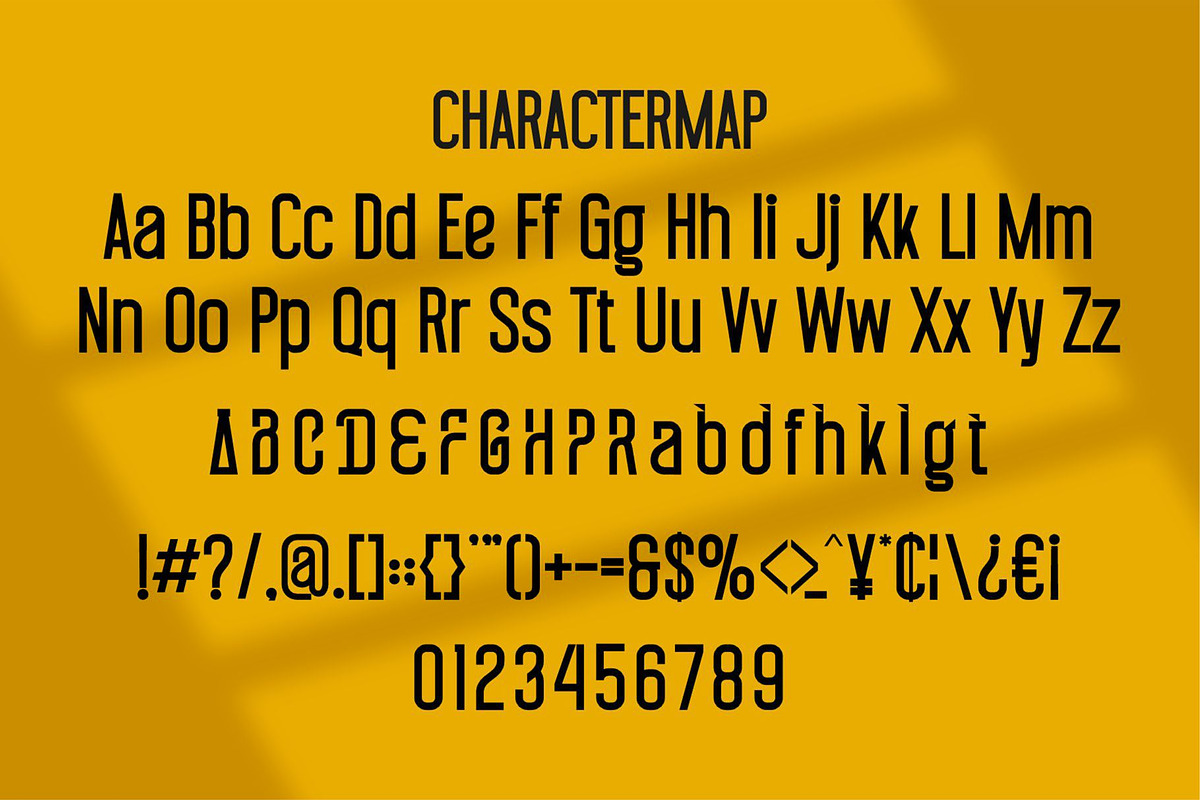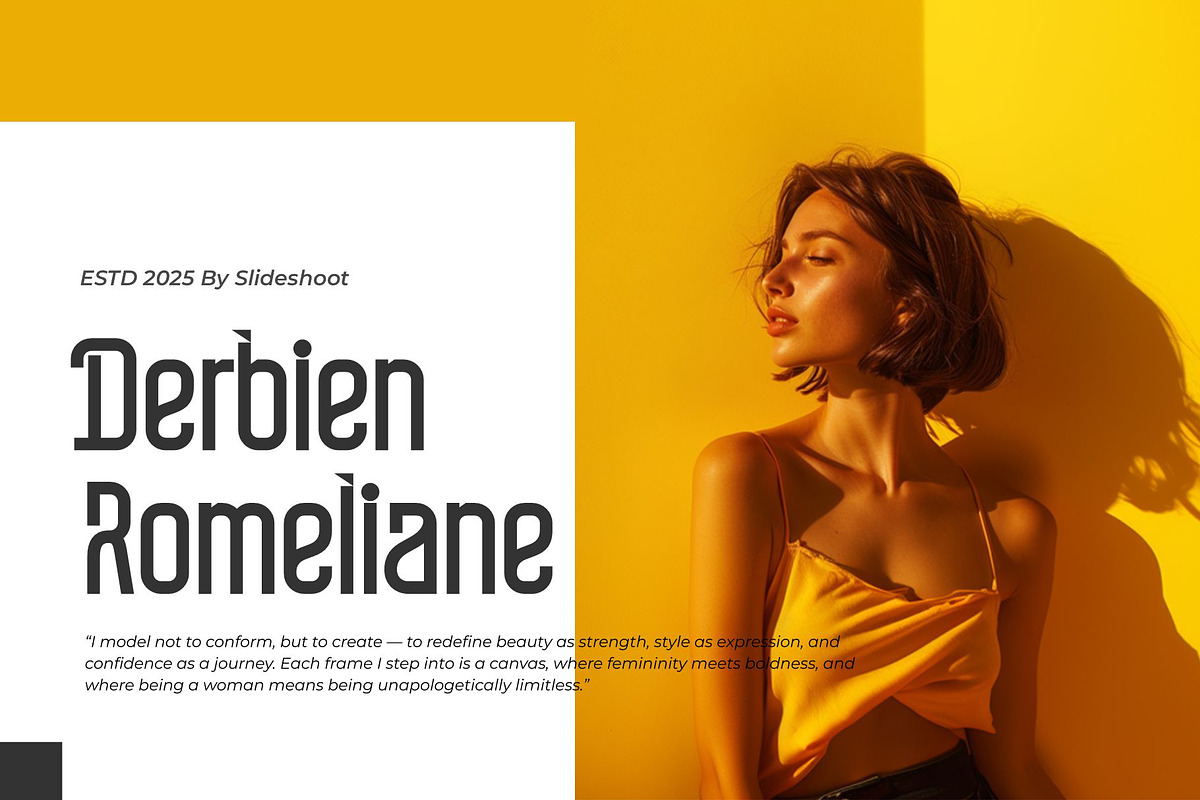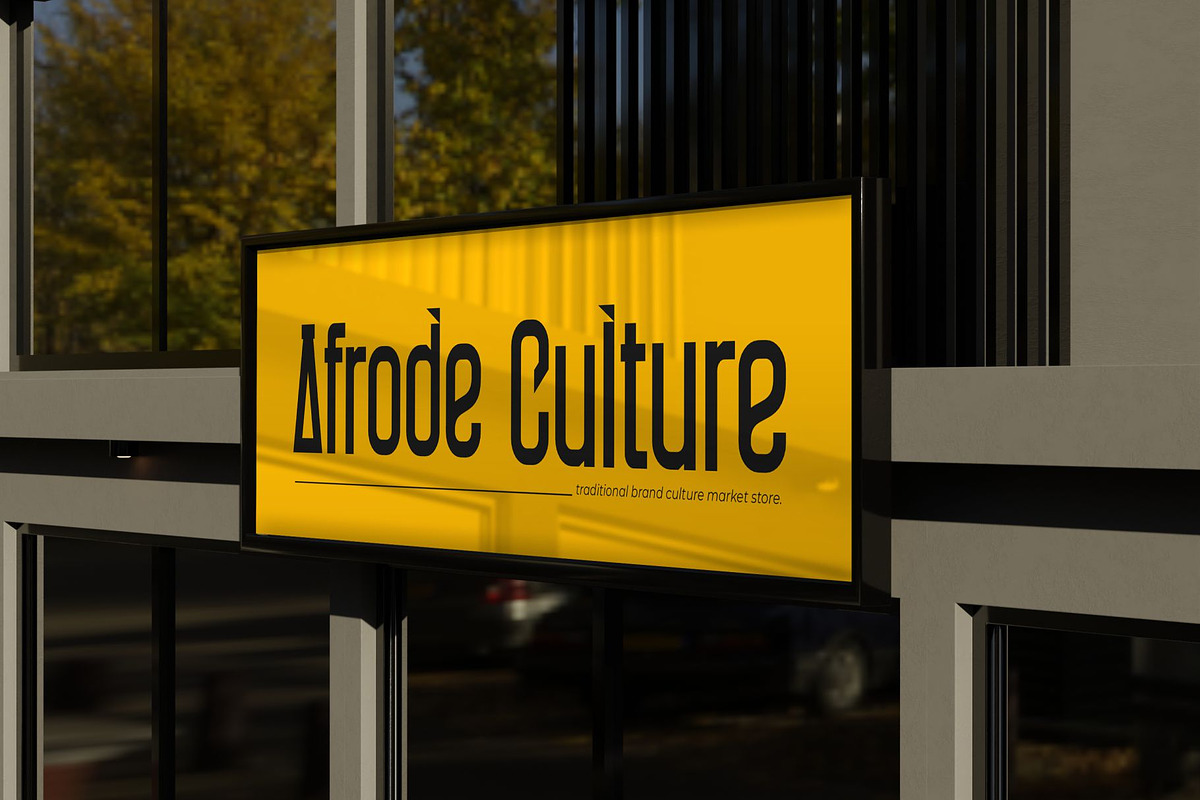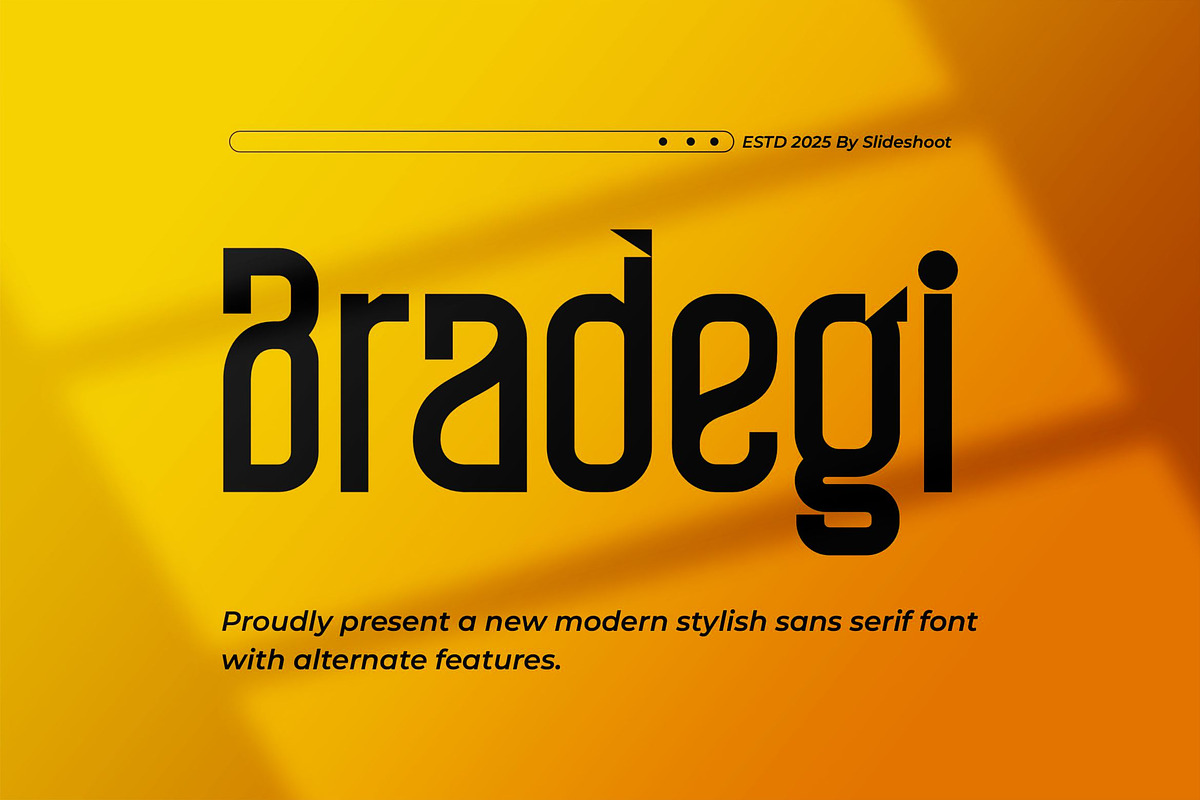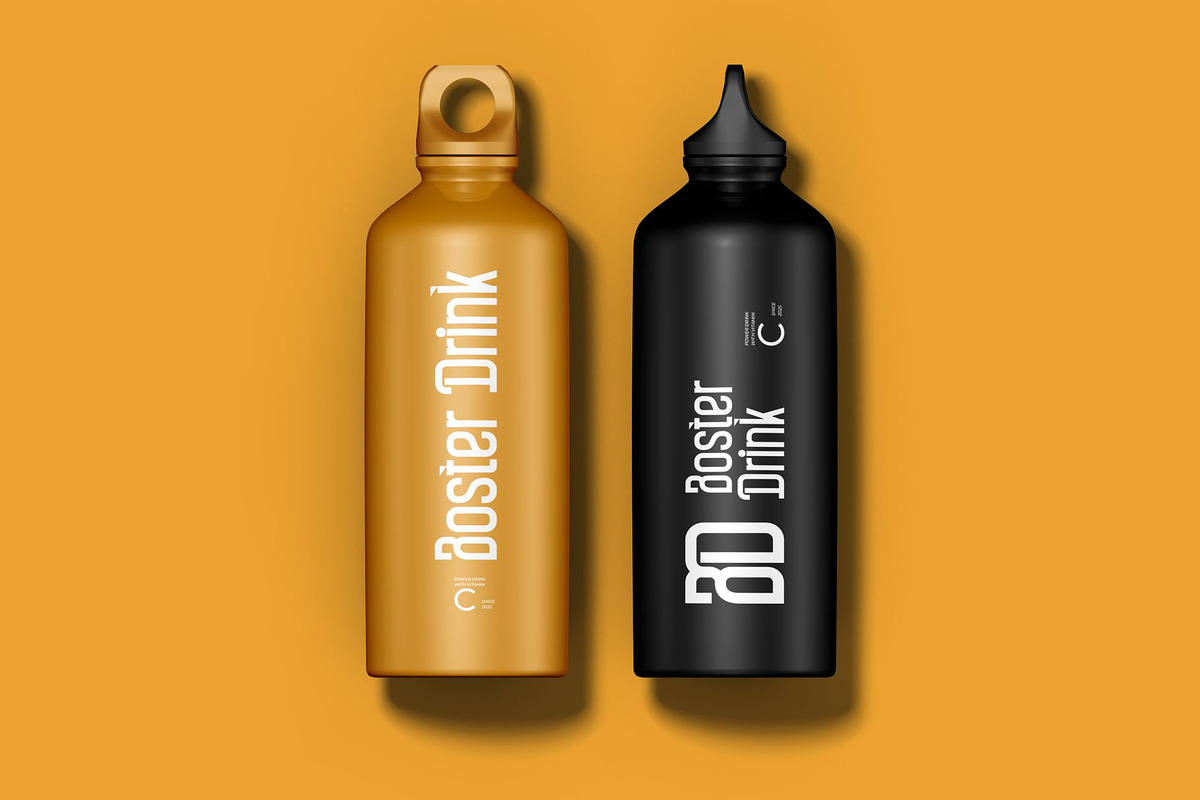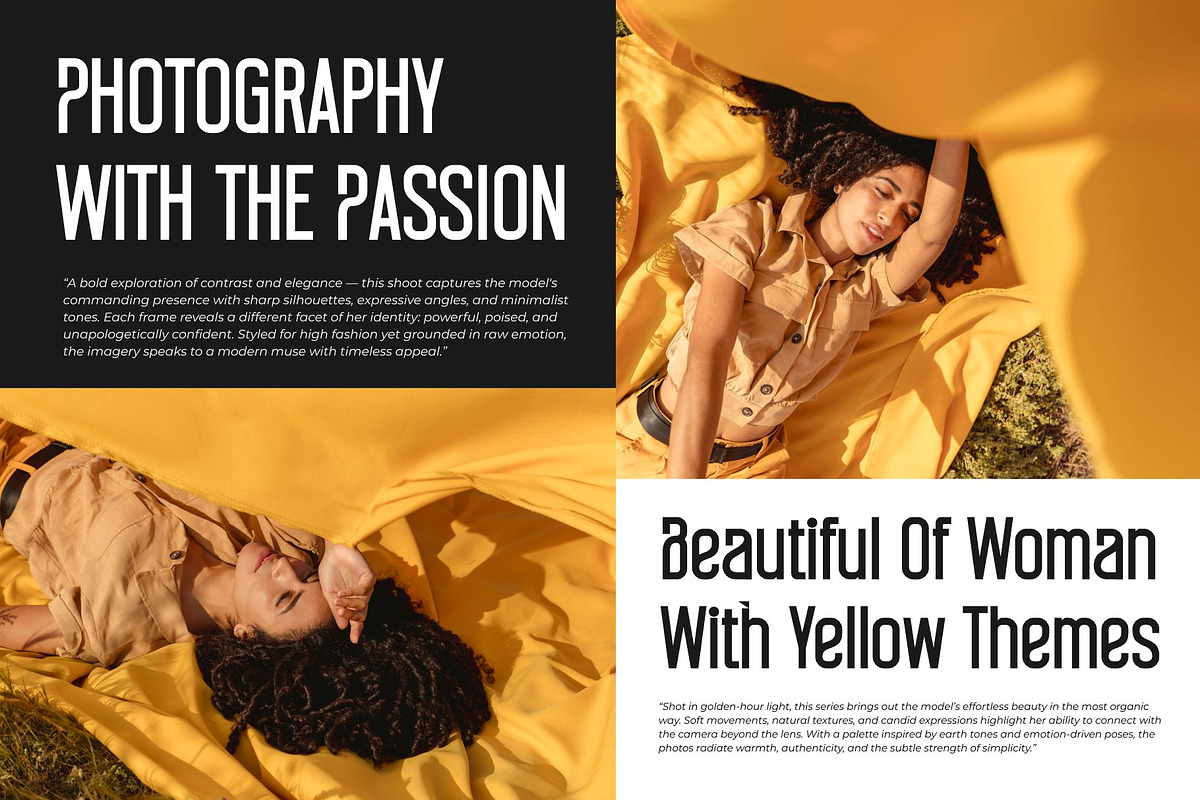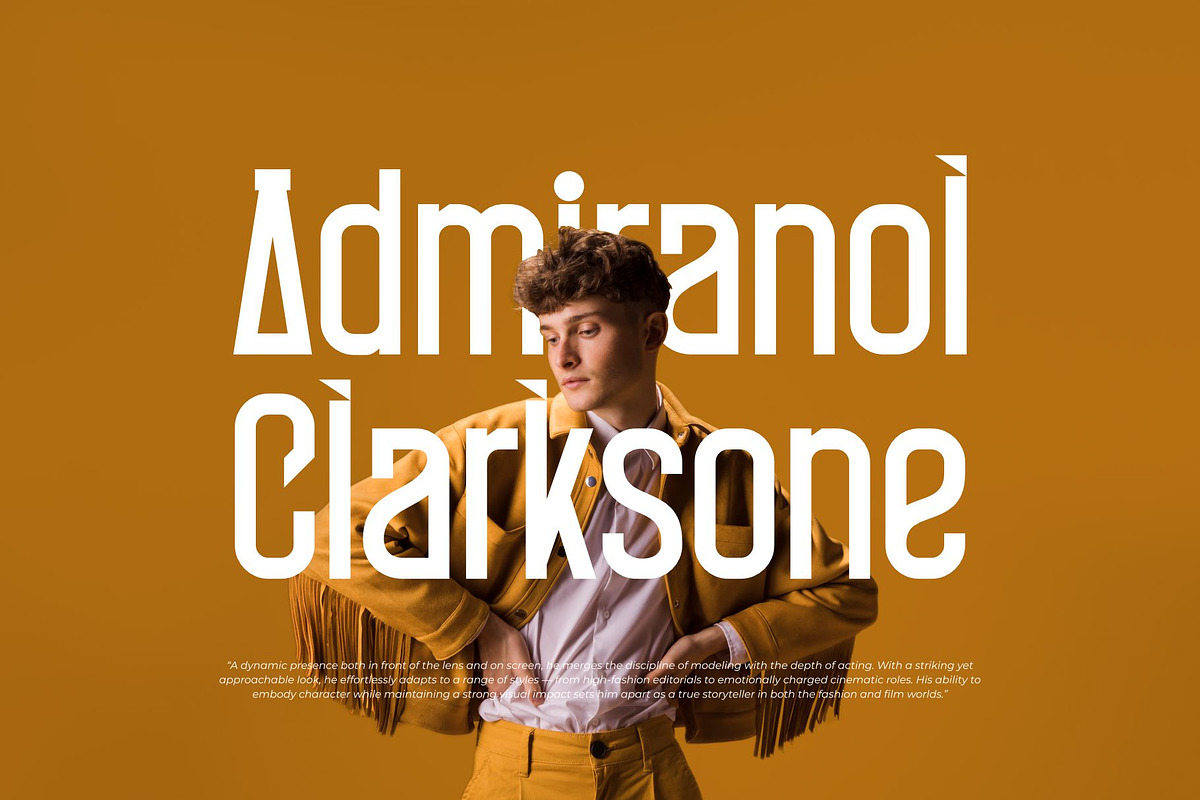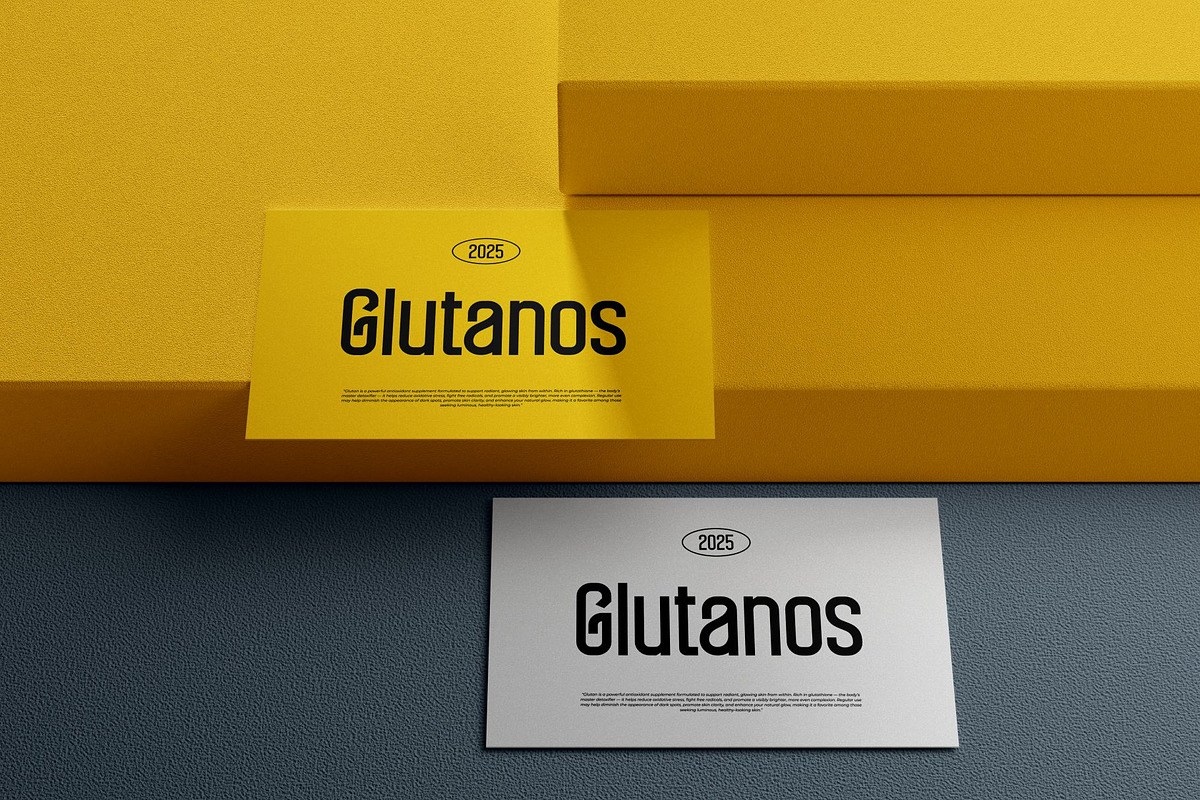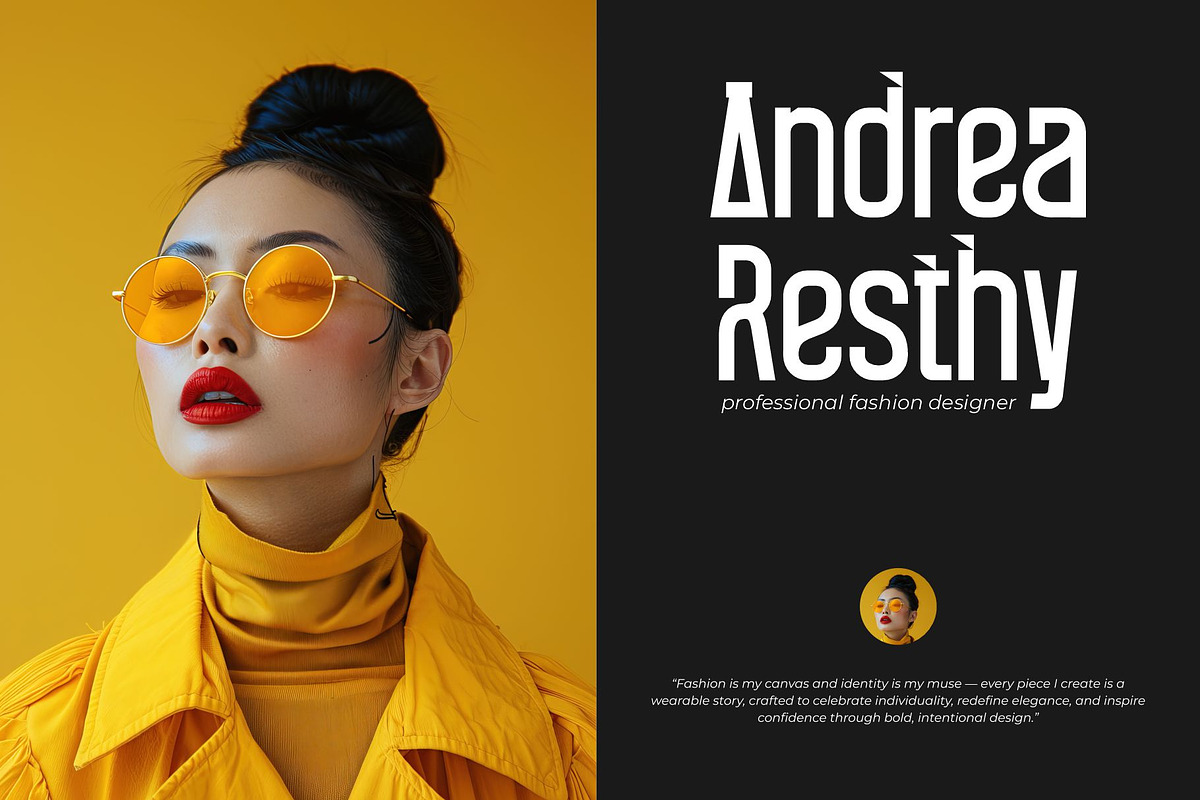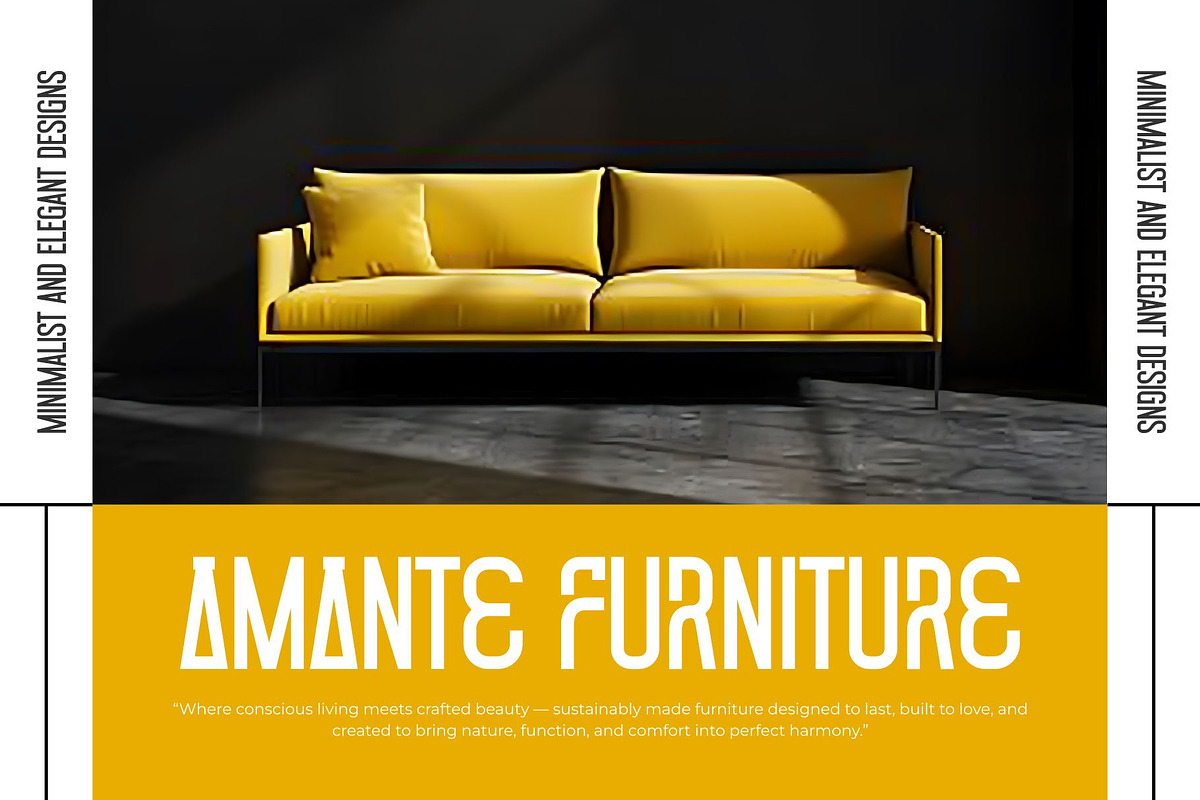
Bradegi || Modern Stylish Sans Serif
Introducing Bradegi is display sans serif Font modern, trendy, bouncy and cute display font. It has a unique character with wood theme. It is perfect to be combined with invitation card designs, company logos, movie titles, movie names, business cards, book titles, brand names and various other designs.